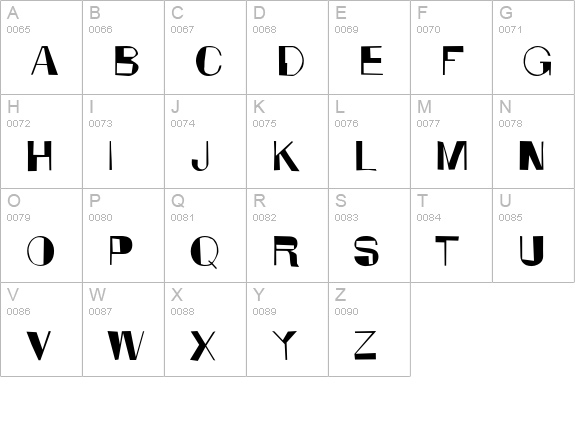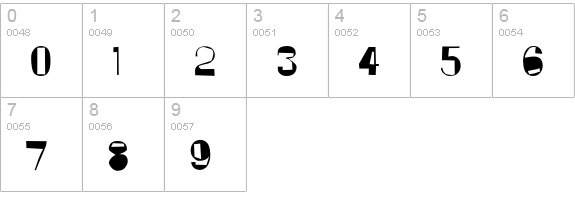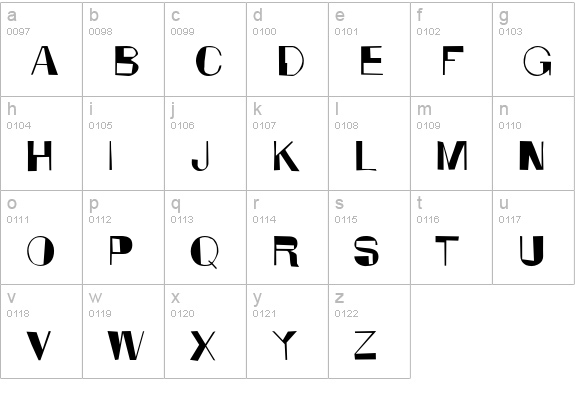
Anarko Font Details
Anarko font is a visually striking and modern typeface that exudes edgy sophistication and rebellious charm. With its sharp angles and bold letterforms, Anarko font demands attention and makes a bold statement in any design project. This versatile font is perfect for creating eye-catching headlines, branding materials, and social media graphics. Designed with creativity and individuality in mind, Anarko font is a unique choice for those looking to add a touch of avant-garde flair to their work. Whether you're designing a poster for a music festival or crafting a logo for a cutting-edge startup, Anarko font will help you stand out from the crowd and make a lasting impression. The best part? Anarko font is completely free to download at FontsMarket.com, making it accessible to designers of all levels and budgets. So go ahead, unleash your creativity and let Anarko font be the bold, rebellious voice of your next design project.